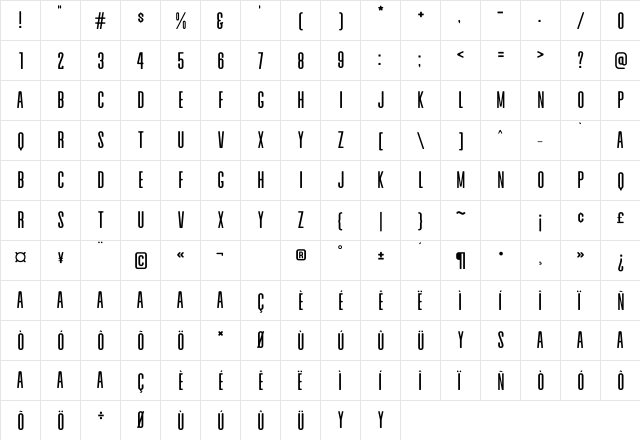
Alvaro Condensed Regular
| Foundry | Don Marciano |
| Designer | Juan Miguel Castillo |
Design Context for Alvaro Condensed Typeface
Alvaro Condensed is a composed and adaptable typeface that performs quietly and consistently across a wide range of design contexts. The condensed width makes it efficient for tight spaces without sacrificing legibility.